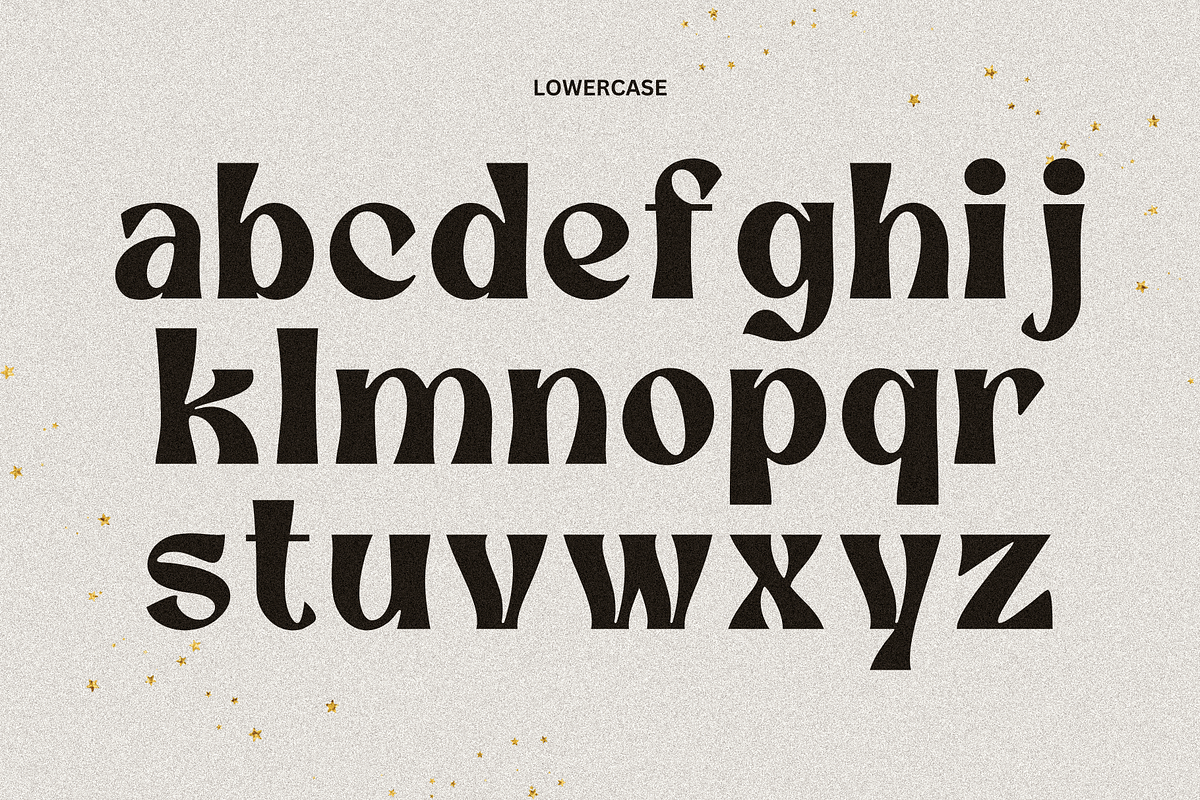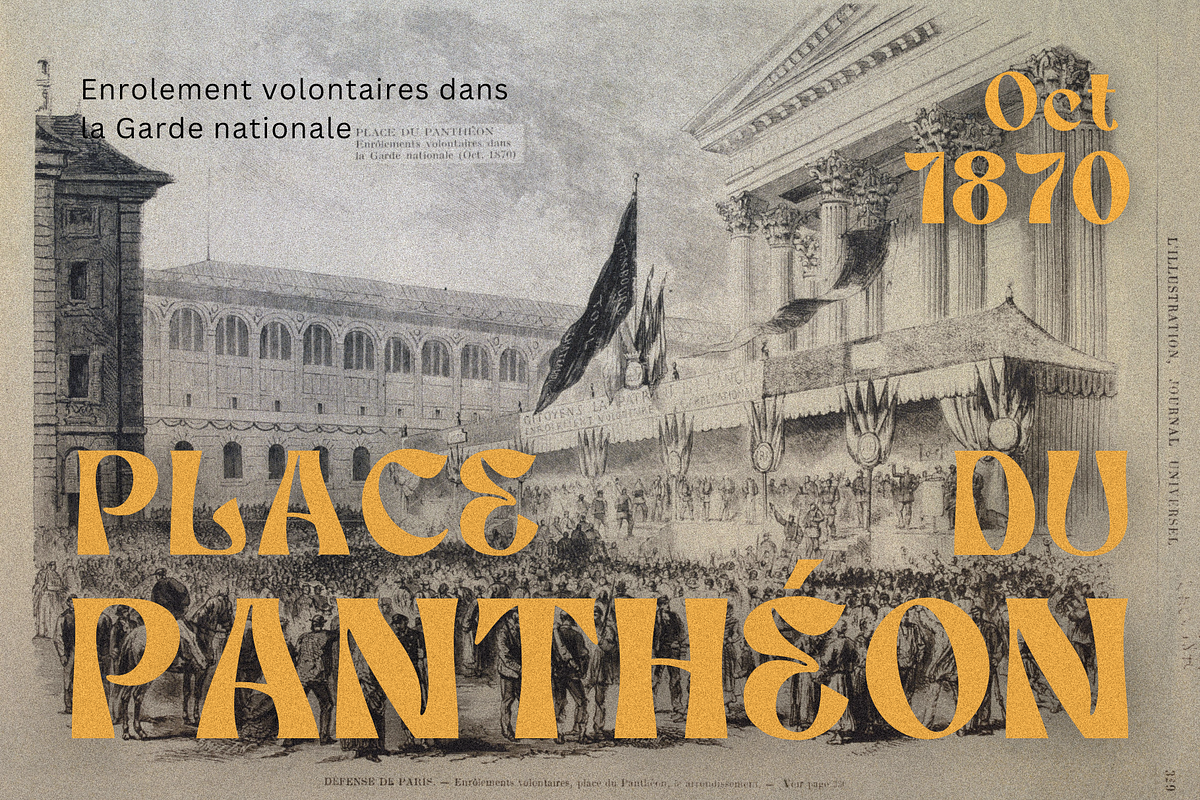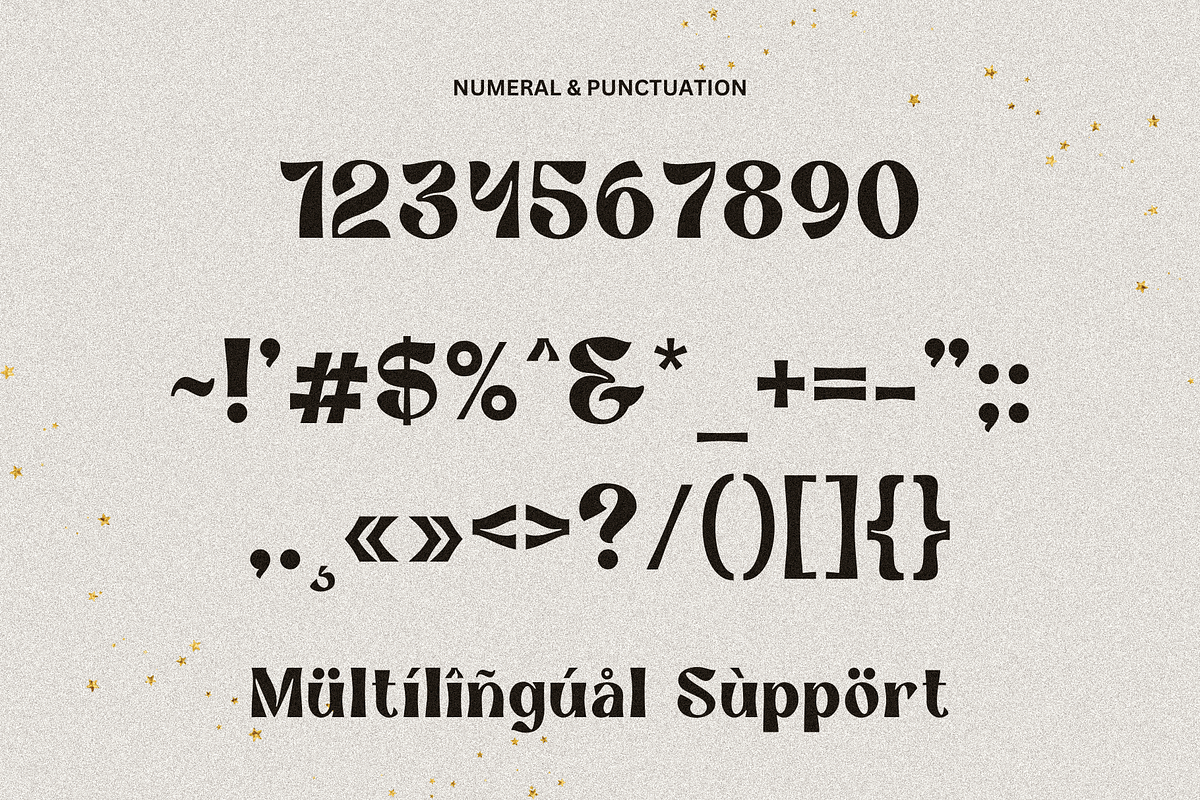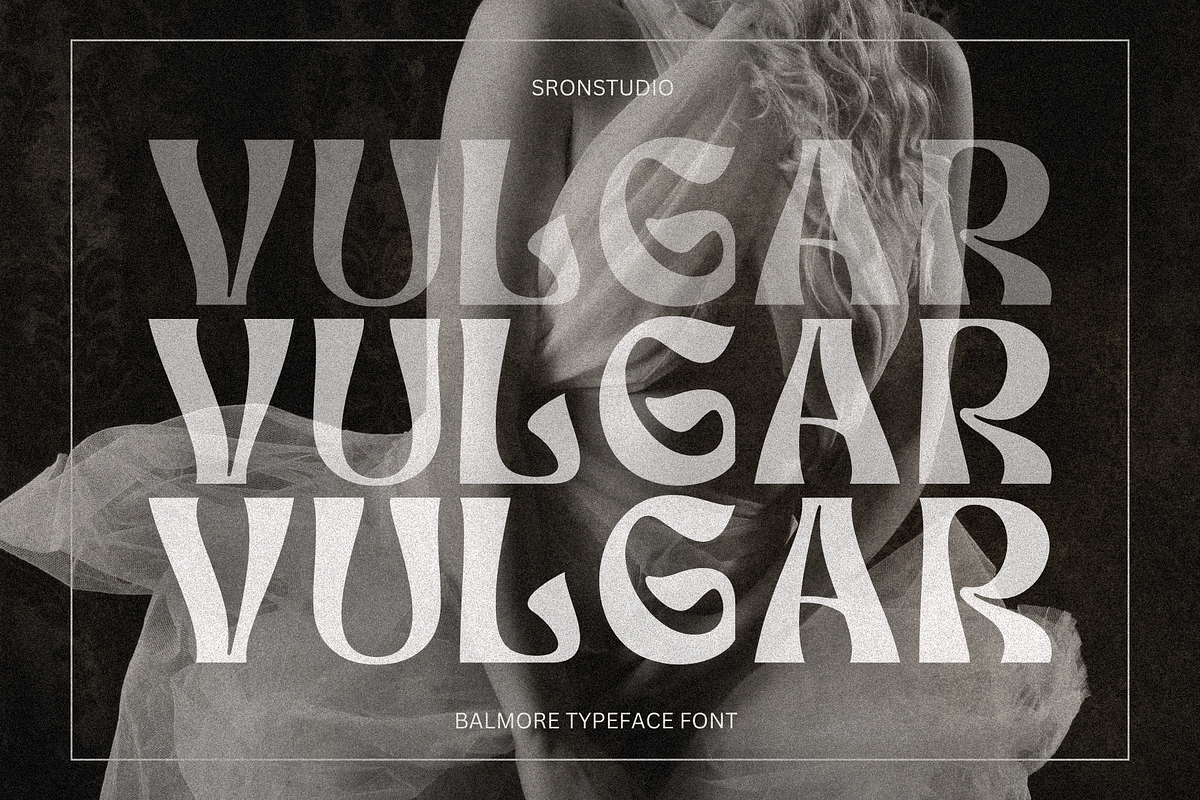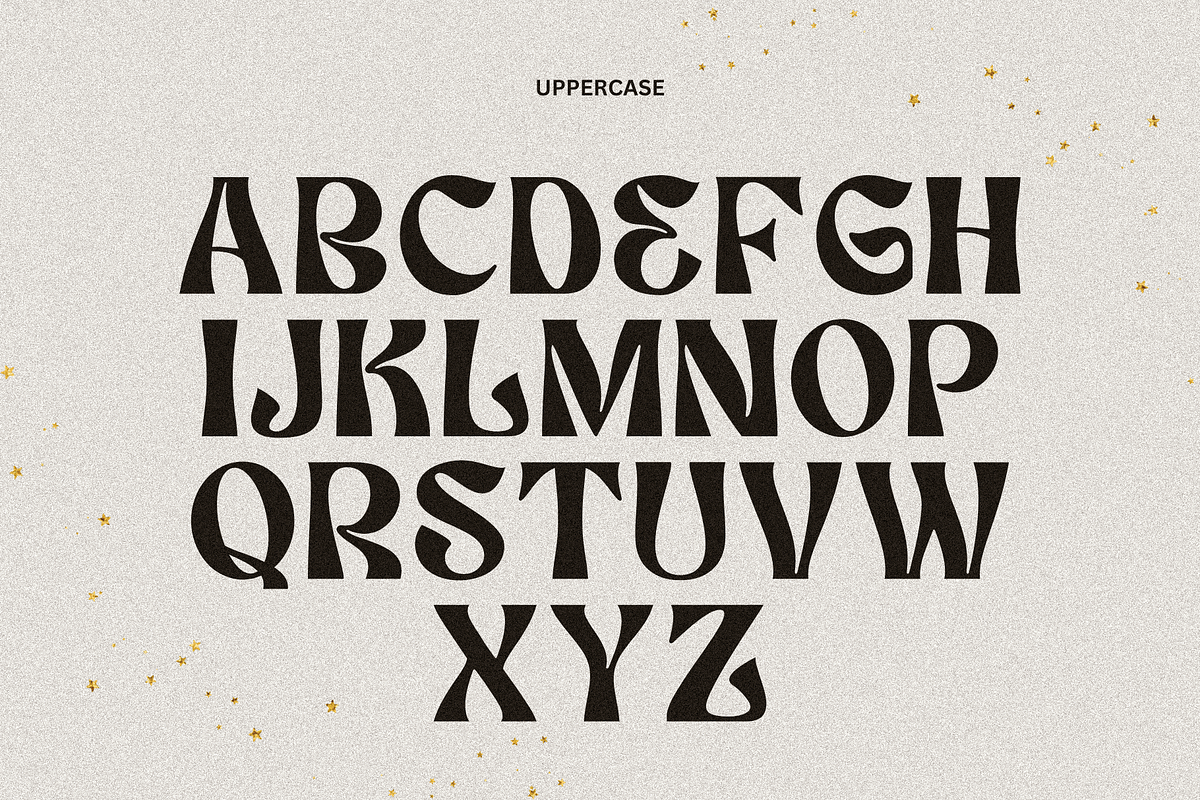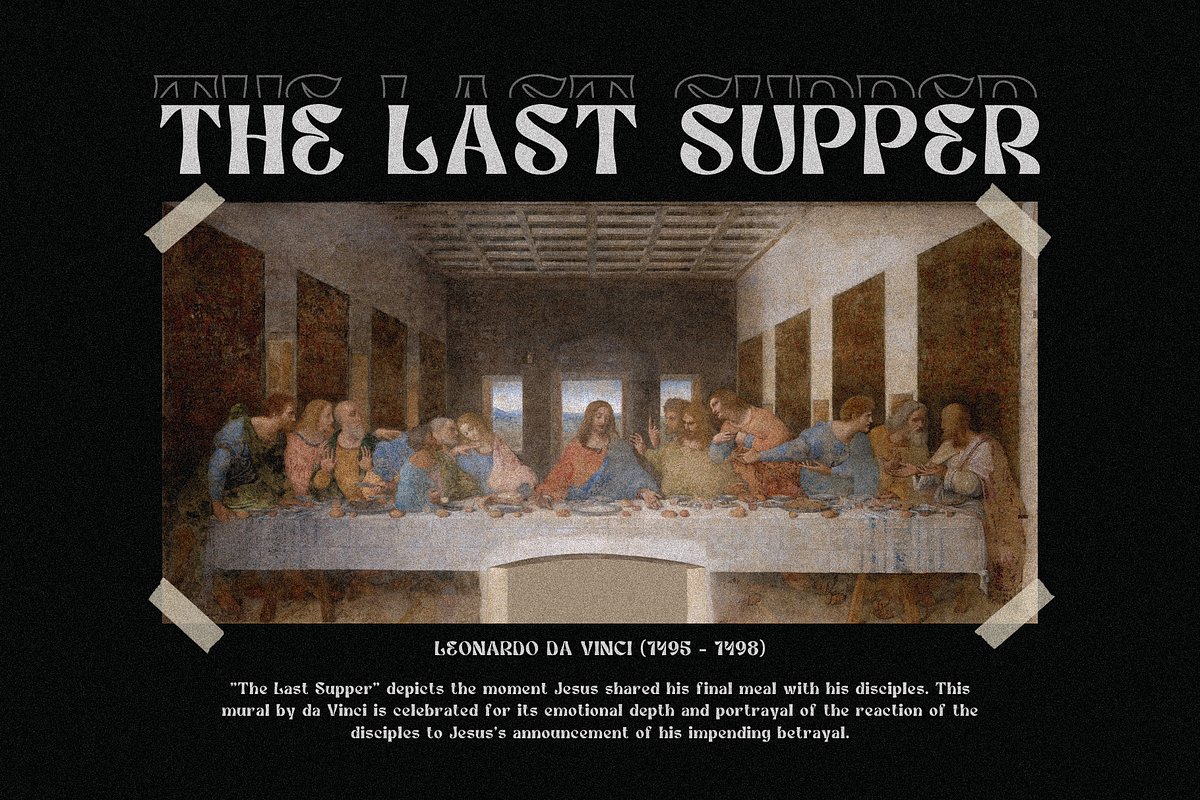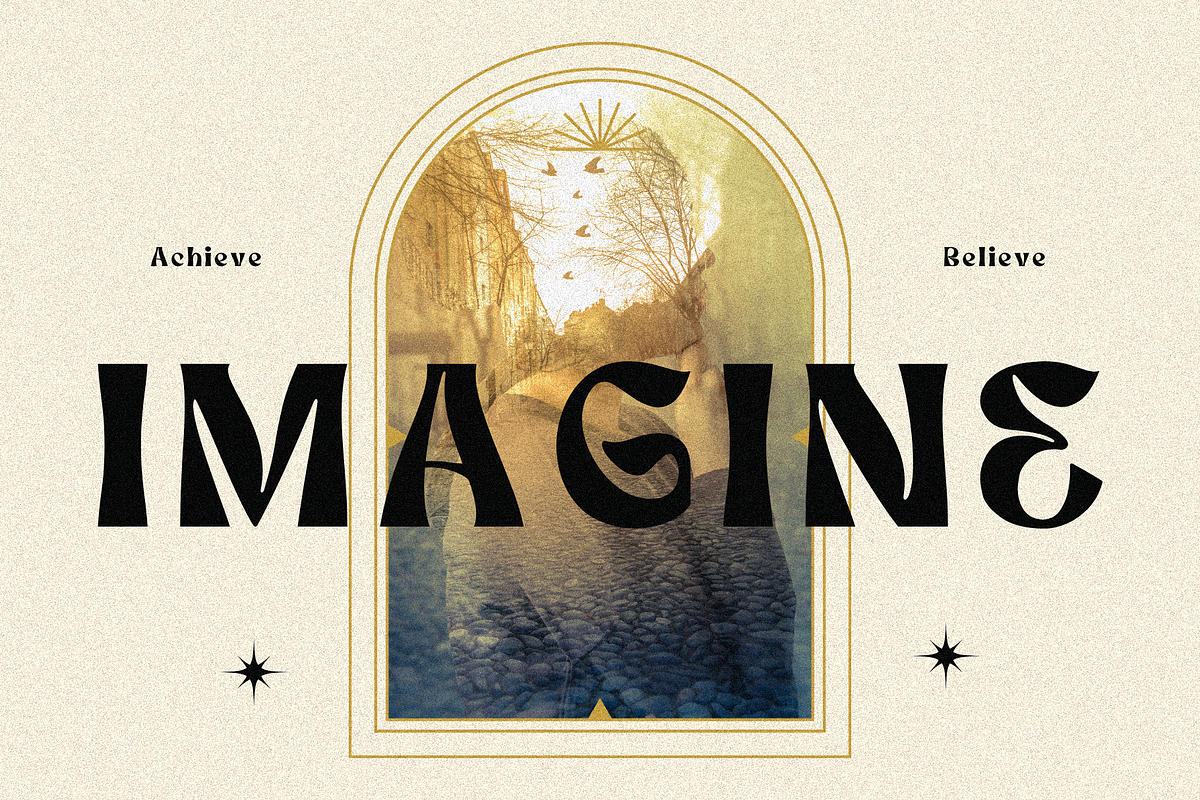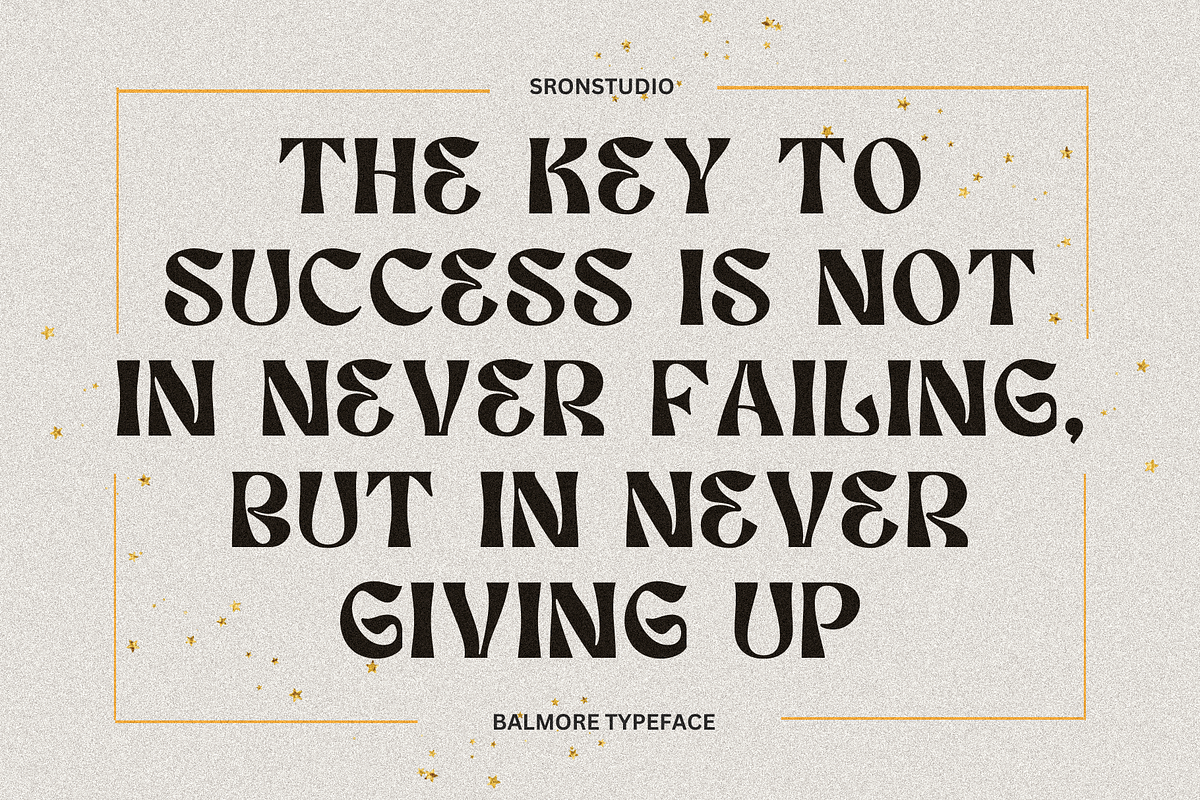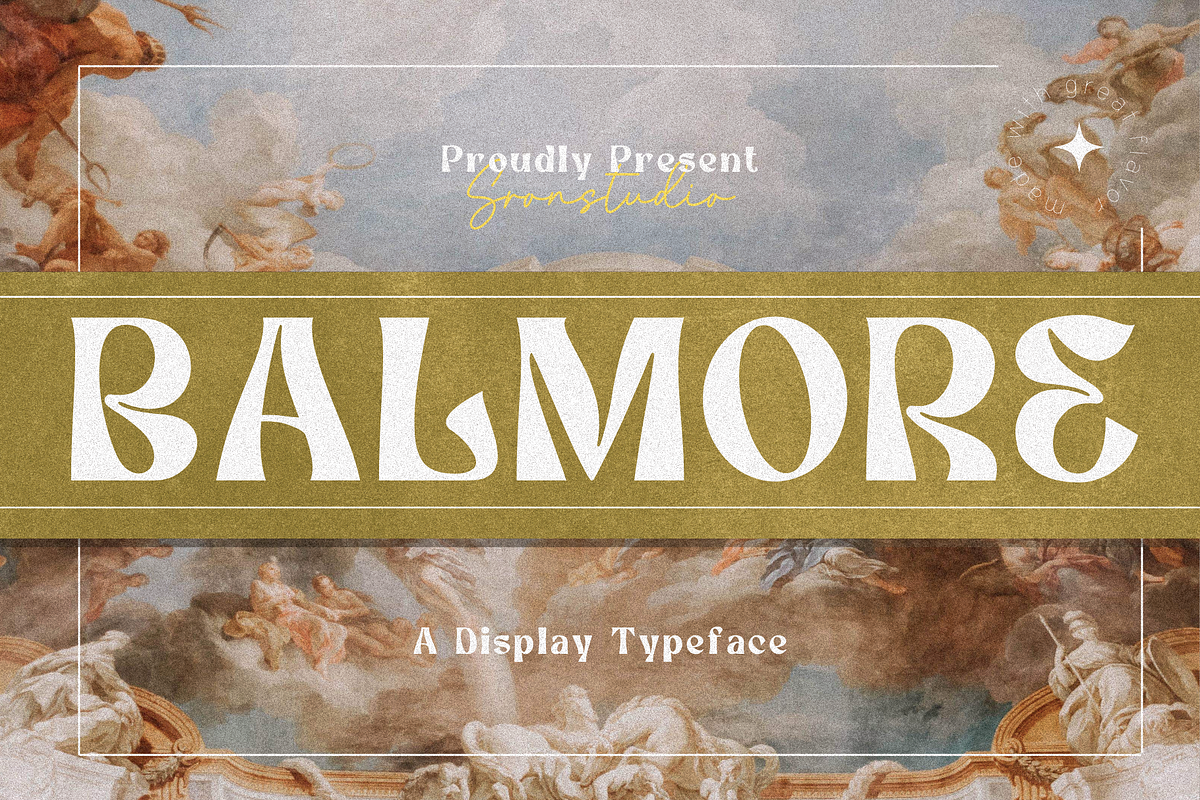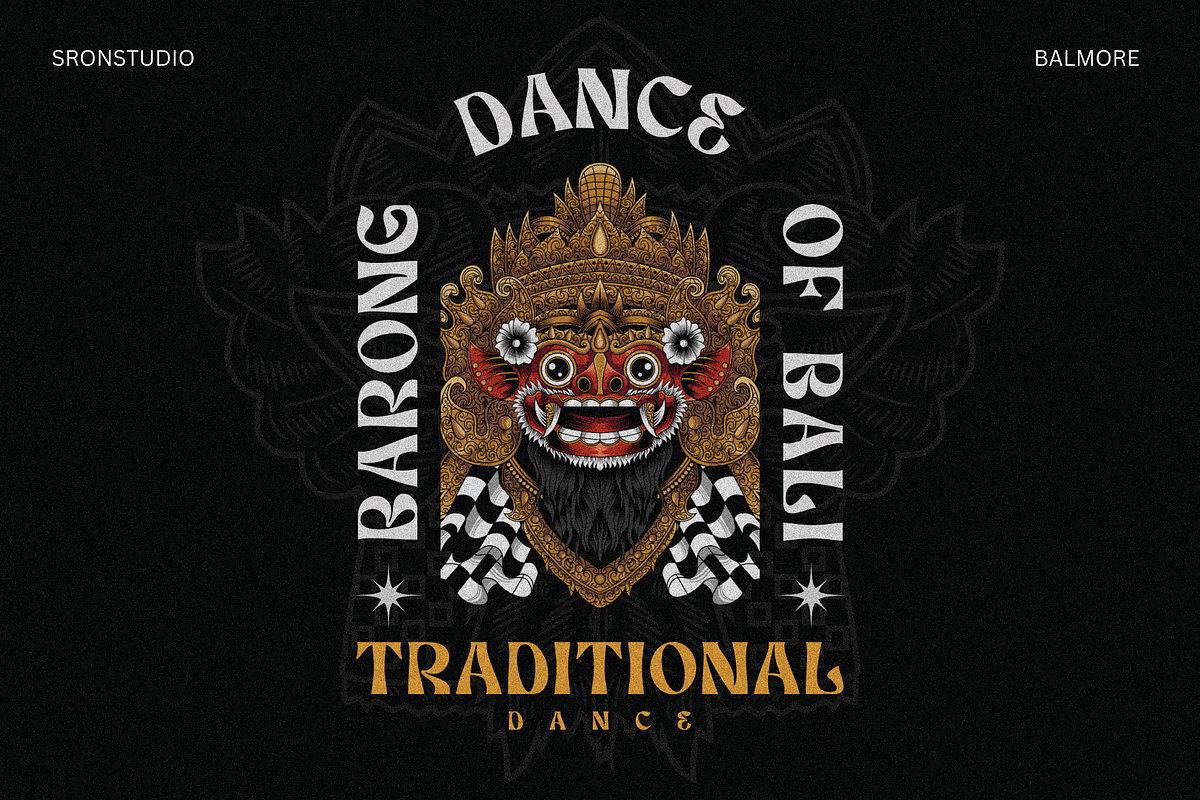
Balmore
"Balmore" is a unique modern display font that stands out with its distinctive character. With its avant-garde letterforms and contemporary design, it adds a touch of individuality and innovation to your projects. Perfect for branding, headlines, and any design that requires a bold and unique statement, "Balmore" brings a fresh and captivating edge to your work.
- Uppercase and lowercase letters
- Multilingual, numerals, and punctuation